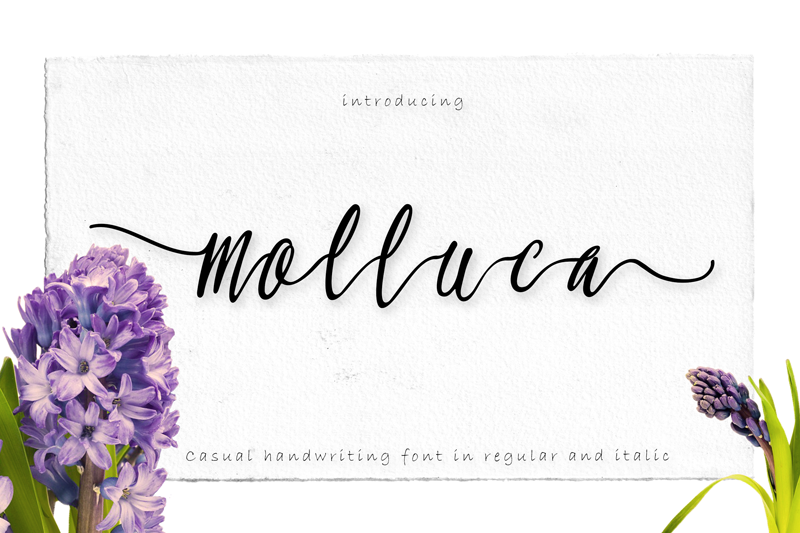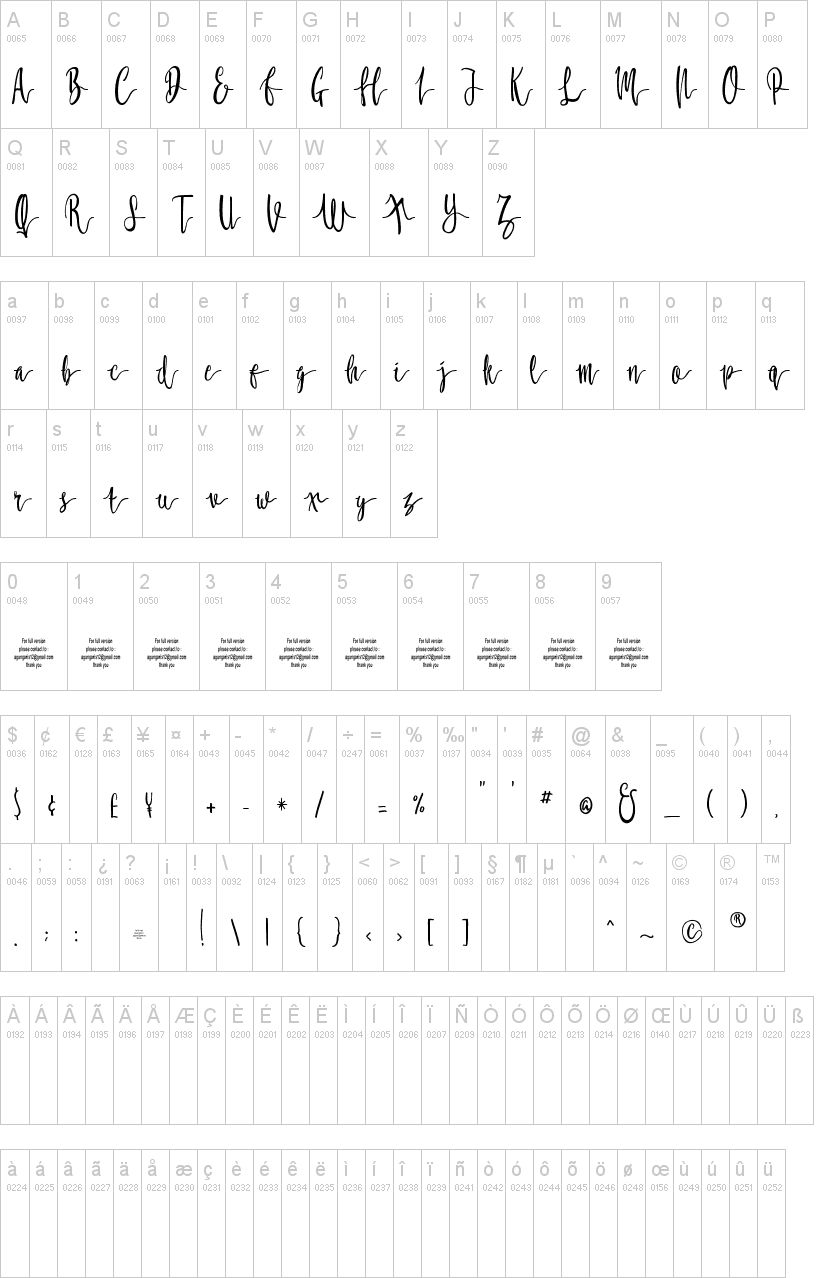
Molluca italic free.ttfNote of the authorMolluca brings a wider concept of handwriting between letters. Letters more clearly and gives a more beautiful impression. Molluca offers the same regular and italic types that give the same expensive impression in every use.